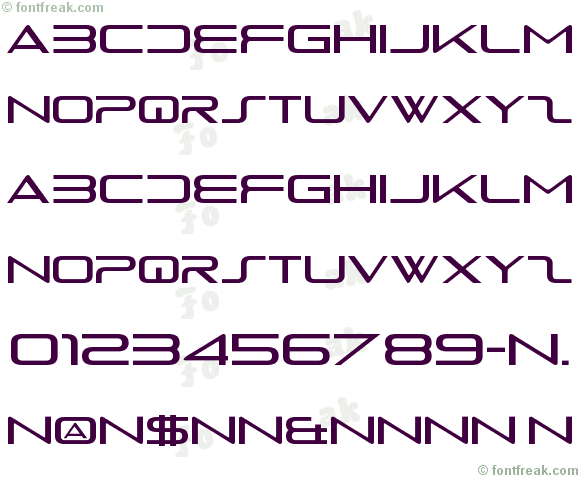
The Rave Is In Your Pants
The Rave Is In Your Pants by Andrew McCluskey is a striking display typeface that exudes a modern, energetic vibe. This font falls into the category of decorative typefaces, making it perfect for grabbing attention and evoking excitement. The visual characteristics of this typeface showcase a bold stroke weight with minimal contrast, resulting in a clean and cohesive look. The letters are evenly spaced, allowing for easy readability while maintaining a unique aesthetic. Its geometric forms are complemented by slightly rounded edges, which add a touch of friendliness to its overall design.
This font is ideal for various creative applications. It shines in contexts like music festival posters, where its vibrant personality can resonate with the audience. Additionally, it works well for promotional materials for nightlife events, helping to convey a sense of fun and energy. The Rave Is In Your Pants is also a great choice for social media graphics, especially for brands targeting a youthful demographic. Small business owners looking to create eye-catching signage or merchandise will find this font particularly advantageous. Moreover, content creators can utilize it in blogs or vlogs that focus on entertainment and lifestyle themes.
Targeting graphic designers, small business owners, and content creators, this typeface offers a fresh approach to visual communication. Its unique style allows for a range of creative expressions that can set projects apart from the competition. The Rave Is In Your Pants font free download provides an excellent opportunity for anyone looking to elevate their designs with a distinctive flair. Ultimately, this font stands out not just for its aesthetic appeal, but also for its versatility, making it a must-have in any designer's toolkit.